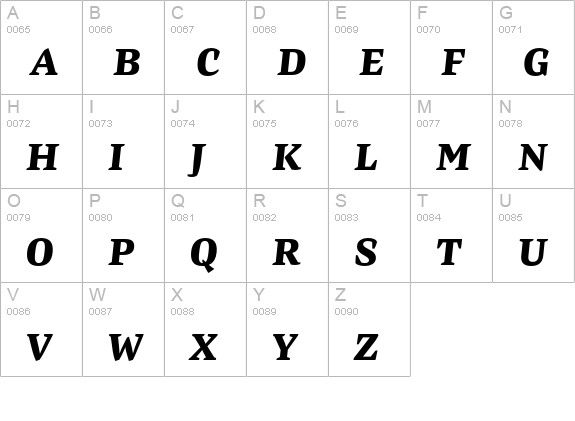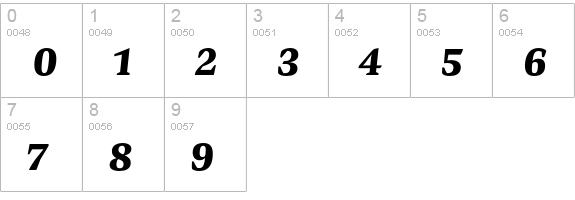
PretoSerifOTStdBlack-Italic Font Details
PretoSerifOTStdBlack-Italic is a distinctive, italic variant in the PretoSerifOTStdBlack typeface family \xE2\x80\x94 well suited to design and typography projects.
PretoSerifOTStdBlack-Italic is a bold and elegant typeface that exudes sophistication and modernity. Its sleek design features strong, thick strokes with a touch of flair, making it perfect for creating eye-catching headlines and statements. The italic style adds a sense of drama and emphasis, making your text stand out effortlessly. This font is not only visually striking but also versatile, suitable for a wide range of design projects, from branding and advertising to editorial and web design. Whether you're looking to make a bold statement or add a touch of elegance to your work, PretoSerifOTStdBlack-Italic is sure to deliver. What's even better is that this font is available for free download at FontsMarket.com. Now you can elevate your designs with this stunning typeface without breaking the bank. Don't miss out on the opportunity to enhance your projects with the striking beauty of PretoSerifOTStdBlack-Italic. Download it today and unleash your creativity!